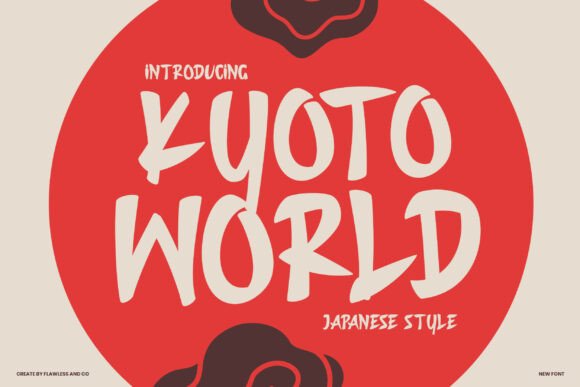
Discover the Unique Charm of Kyoto World Font: A Bold Japanese-Style Typeface
In the realm of typography, fonts play a crucial role in conveying messages, expressing creativity, and capturing the essence of a brand or design. Among the numerous fonts available, the Kyoto World Font stands out as a distinctive and captivating typeface that embodies the vibrant energy of Japan’s street signs, ramen shops, and cultural aesthetics. In this article, we’ll delve into the world of Kyoto World Font, exploring its inspiration, characteristics, and uses, as well as its potential to elevate your designs with a touch of East Asian flair.
The Inspiration Behind Kyoto World Font
Kyoto World Font is a bold Japanese-style font that draws inspiration from the lively streets of Japan. The typeface combines modern brush strokes with a playful, handcrafted spirit, reflecting the country’s rich cultural heritage and aesthetic sensibilities. The font’s creator aimed to capture the essence of Japan’s urban landscapes, from the colorful street signs to the enticing ramen shops, and infuse it into a unique typographic design.
The result is a font that exudes a sense of energy, playfulness, and sophistication, making it perfect for designs that require a distinctive and eye-catching charm. Whether you’re working on branding, restaurant menus, packaging, merchandise, posters, or any other design project, Kyoto World Font offers a versatile and attention-grabbing solution.
Characteristics of Kyoto World Font
Kyoto World Font boasts a range of characteristics that set it apart from other typefaces. Some of its notable features include:
- Bold and modern brush strokes: The font’s bold, expressive brush strokes give it a dynamic and contemporary feel, perfect for designs that require a strong visual impact.
- Playful and handcrafted spirit: The font’s handcrafted essence adds a touch of warmth and personality to your designs, making them more approachable and engaging.
- East Asian flair: Kyoto World Font’s inspiration from Japanese culture and aesthetics infuses it with a unique and distinctive charm, allowing you to add a touch of East Asian flair to your designs.
- Versatility: The font’s versatility makes it suitable for a wide range of design applications, from branding and advertising to packaging and merchandise.
Uses of Kyoto World Font
Kyoto World Font’s versatility and unique characteristics make it an excellent choice for various design projects. Some of the potential uses of this font include:
- Branding: Use Kyoto World Font to create bold and memorable brand identities that reflect your company’s personality and values.
- Restaurant menus: Add a touch of East Asian flair to your restaurant menus and make them stand out with Kyoto World Font’s unique and eye-catching design.
- Packaging: Use the font to create eye-catching packaging designs that reflect your brand’s personality and appeal to your target audience.
- Merchandise: Kyoto World Font is perfect for designing merchandise, such as t-shirts, stickers, and posters, that require a bold and attention-grabbing typographic style.
- Posters and advertising: The font’s bold and modern brush strokes make it an excellent choice for designing posters and advertisements that require a strong visual impact.
Benefits of Using Kyoto World Font
Using Kyoto World Font in your designs offers several benefits, including:
- Unique and distinctive design: The font’s inspiration from Japanese culture and aesthetics ensures that your designs stand out from the crowd and capture the attention of your target audience.
- Versatility: Kyoto World Font’s versatility makes it suitable for a wide range of design applications, allowing you to use it across various projects and platforms.
- Emotional connection: The font’s handcrafted essence and cultural inspiration can help create an emotional connection with your target audience, making your designs more relatable and engaging.
- Professional and high-quality design: Kyoto World Font’s bold and modern brush strokes ensure that your designs look professional and high-quality, reflecting positively on your brand or business.
How to Use Kyoto World Font Effectively
To get the most out of Kyoto World Font, consider the following tips:
- Use it boldly: Kyoto World Font is designed to make a statement, so don’t be afraid to use it boldly and prominently in your designs.
- Experiment with colors: The font’s bold and modern brush strokes look great in a variety of colors, so experiment with different color schemes to find the one that works best for your design.
- Pair it with complementary fonts: Kyoto World Font can be paired with complementary fonts to create a harmonious and visually appealing typographic design.
- Consider the context: When using Kyoto World Font, consider the context and audience of your design to ensure that the font is suitable and effective.
- What are the key characteristics of Kyoto World Font? The font’s key characteristics include bold and modern brush strokes, a playful and handcrafted spirit, and East Asian flair.
- What are some potential uses of Kyoto World Font? Kyoto World Font can be used for branding, restaurant menus, packaging, merchandise, posters, and advertising.
- What are the benefits of using Kyoto World Font? The benefits of using Kyoto World Font include a unique and distinctive design, versatility, emotional connection, and professional and high-quality design.